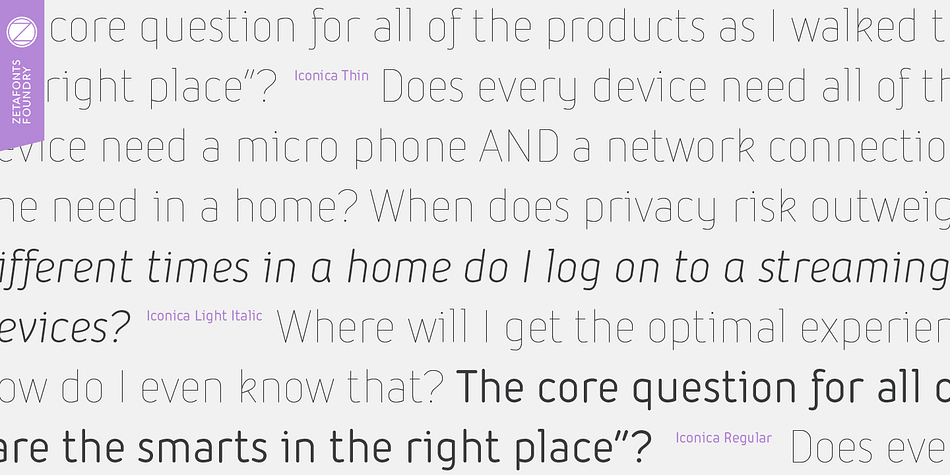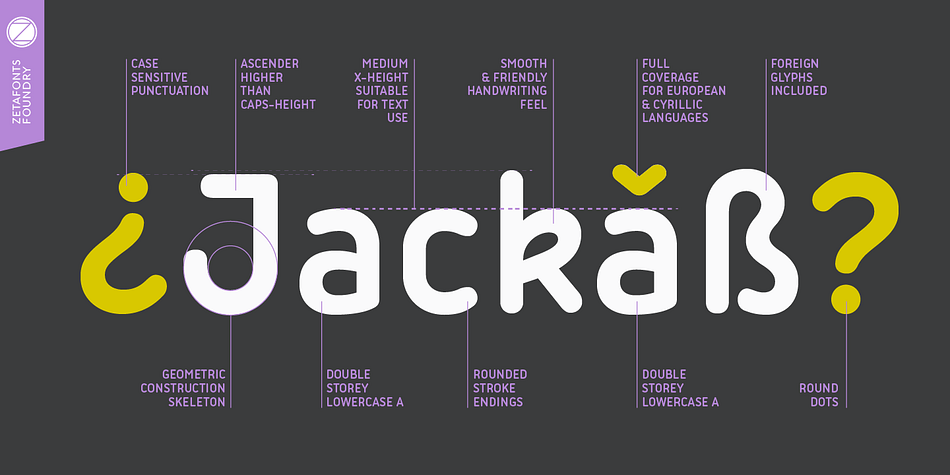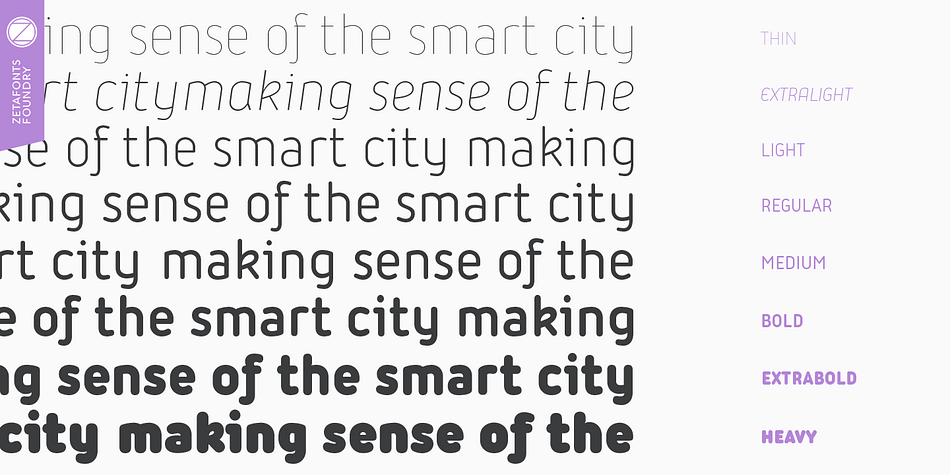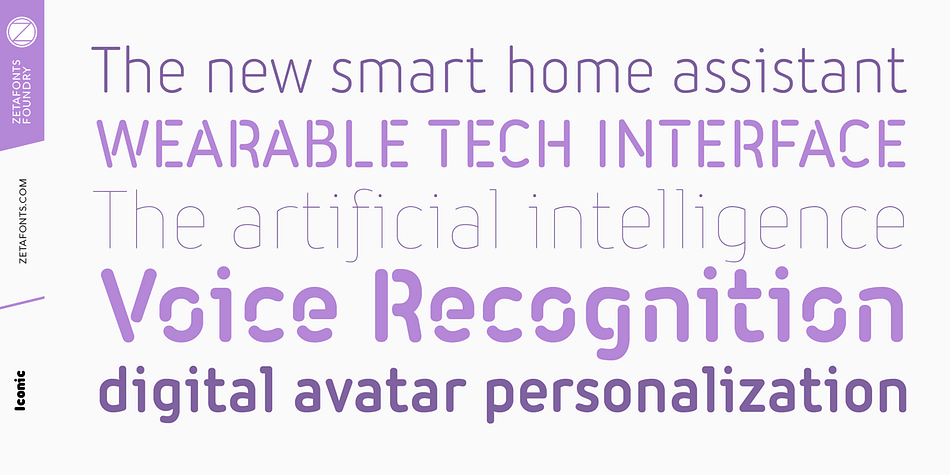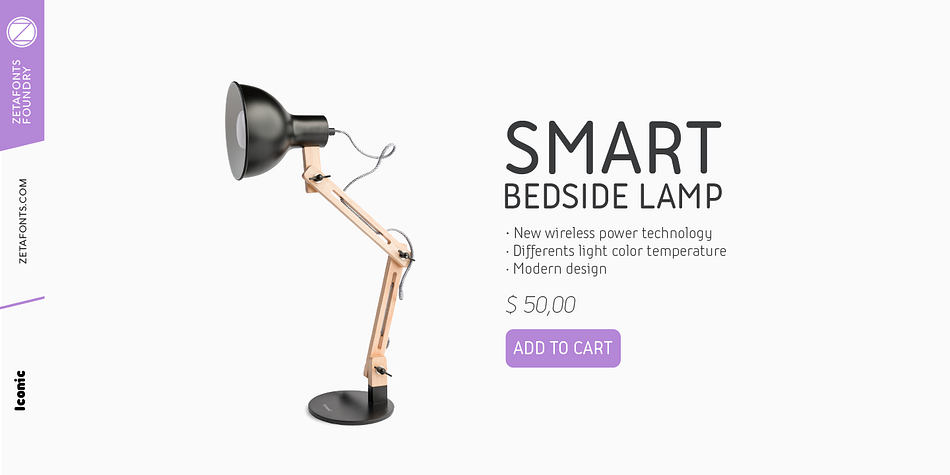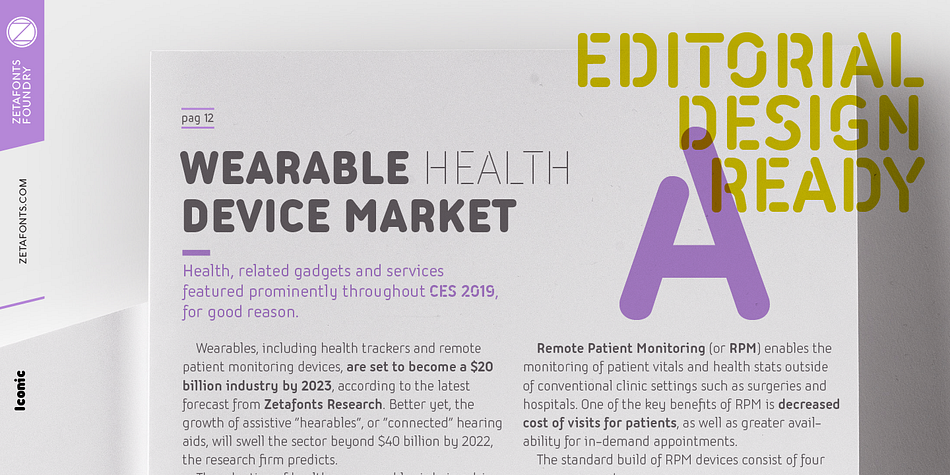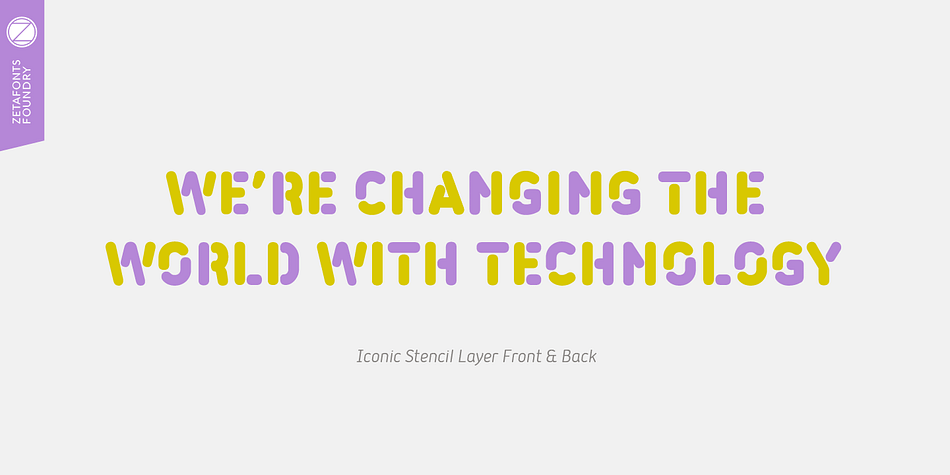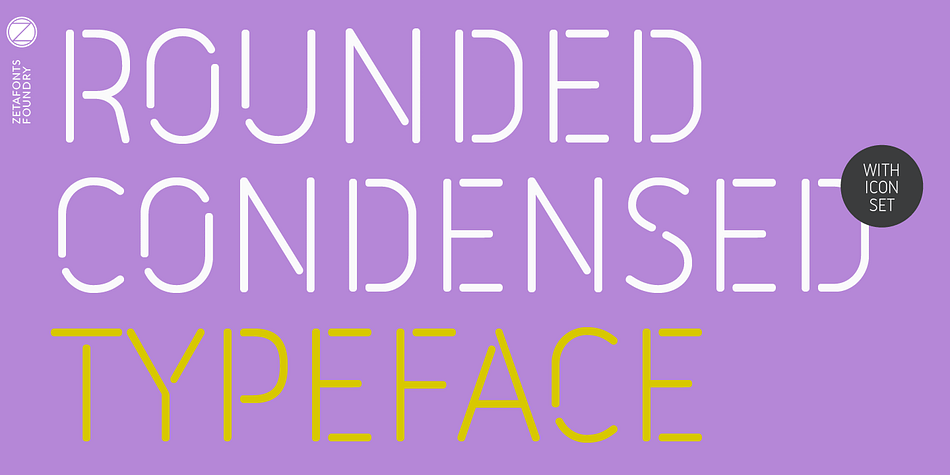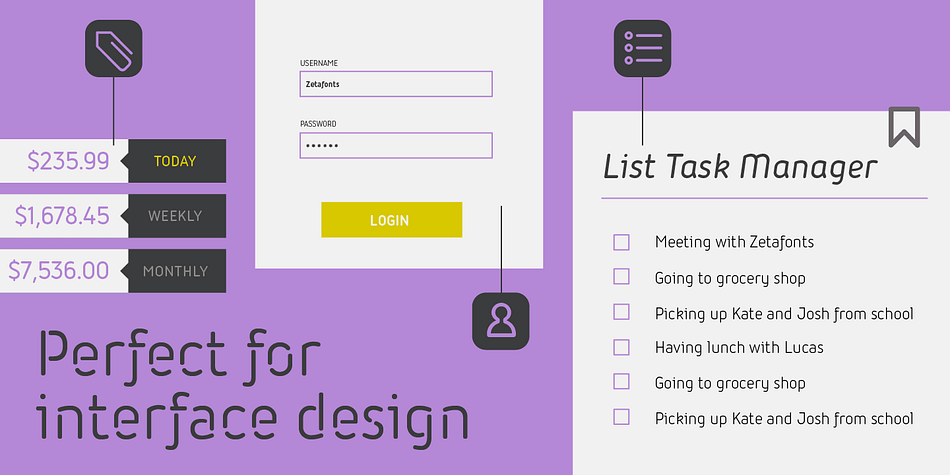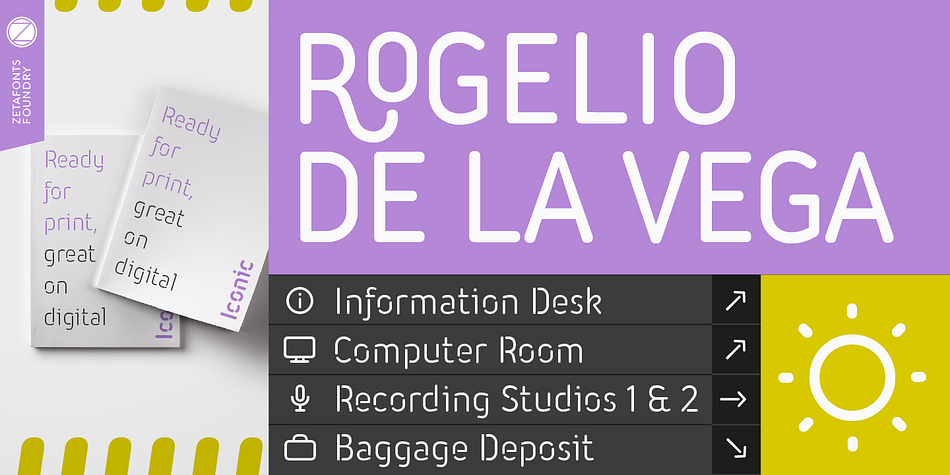
Designed by Francesco Canovaro, Cosimo Pancini and Andrea Tartarelli, Iconic is a sans serif, stencil and dingbat font family. This typeface has thirty styles and was published by Zetafonts.
Iconic is a rounded condensed sans serif typeface designed by Andrea Tartarelli together with Cosimo Lorenzo Pancini and Francesco Canovaro at Zetafonts. It’s a multi-purpose workhorse family designed for clear and effective editorial, interface and information design with minimum usage of space.
The soft, rounded shapes are all derived from basic circular geometry, but slight humanist touches have been added to make the family look more informal and readable. With his slim, minimal aesthetic, Iconic embodies the spirit of contemporary tech, and the desire for an effortless, natural digital experience.
The extensive range of weights allows both for text and display usage. In body copy Iconic excels in clarity from light to bold with a choice of medium and regular for text appearance fine tuning; in display use it allows endless design expressions with a range that goes from the hairline thin weight to the super-fat heavy, all with matching italics.
To complement the basic, regular shapes of the Iconic family, a Stencil subfamily has been designed with a more aggressive technical look. Perfect for wayfinding, branding and interaction design, the six Stencil weights can also be used next to the base family for a rich textural approach to type setting.
Both Iconic and Iconic Stencil feature an extended character set of over 1200 glyphs that covers over 220 languages using the Latin alphabet, as well as Greek and Russian Cyrillic. Open type features include small caps, positional figures, alternate letter forms, stylistic sets, arrows and extra punctuation and discretionary ligatures.
A six-weight icon set, Iconic Pictograms, has been also developed in matching weights to the base family to allow maximum control over the design of digital interfaces using Iconic.